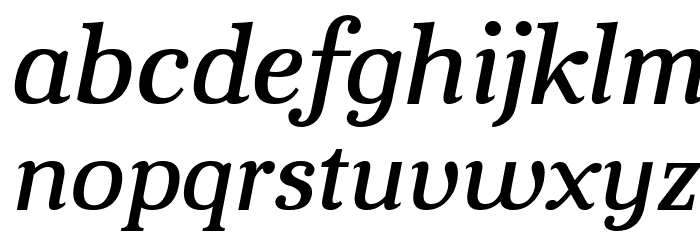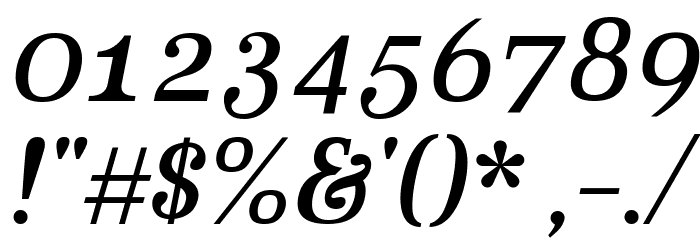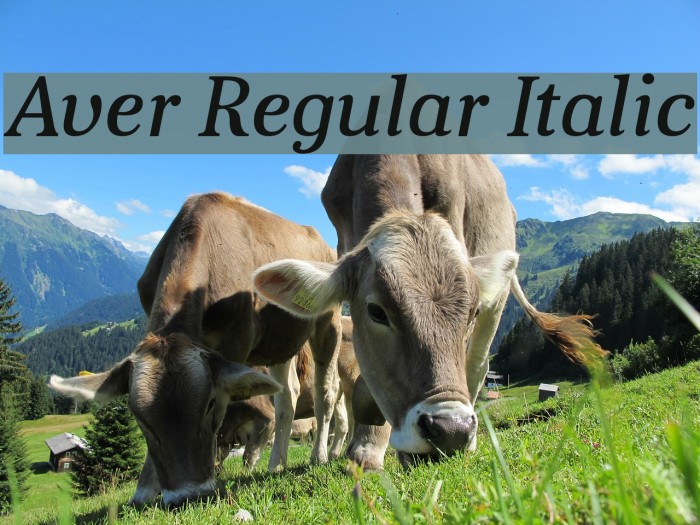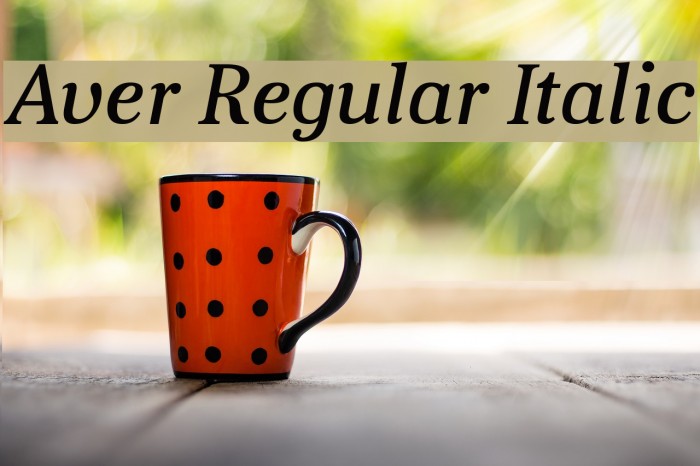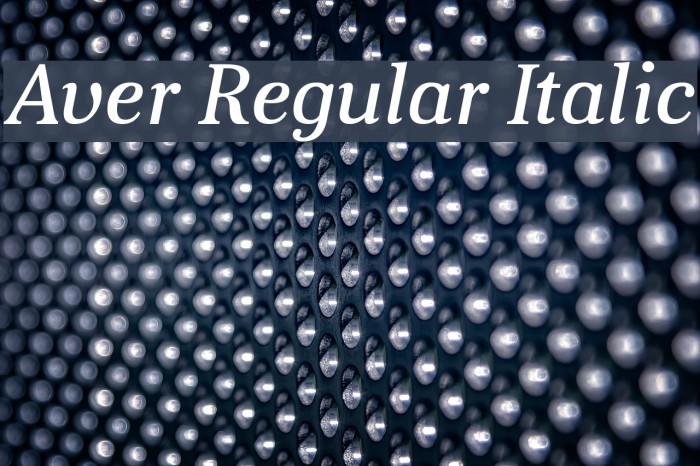
Aver Regular Italic Font
This elegant serif font features a classic italic style, characterized by its smooth, flowing curves and slightly slanted letters. The uppercase letters are well-proportioned, with a refined and sophisticated appearance. The lowercase letters maintain a consistent style, offering a harmonious balance between readability and aesthetic appeal. The numerals are clear and distinct, complementing the overall design. Special characters are thoughtfully crafted, ensuring versatility in various contexts. This font exudes a timeless charm, making it suitable for both traditional and modern applications.
An elegant serif font with a classic italic style and smooth, flowing curves.
- Proposed Projects: Ideal for projects such as book covers, wedding invitations, elegant branding, and editorial design.
- Category: Serif
- Overall Style: Classic
- Use Case: Headlines, Body text, Logos